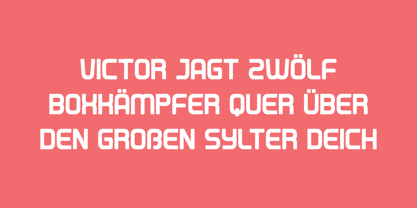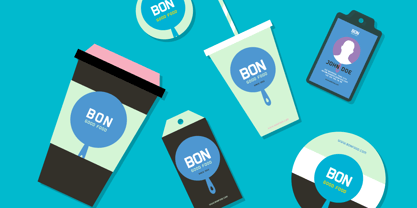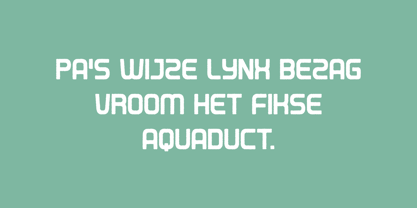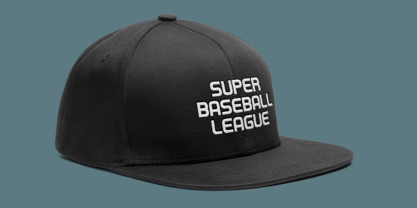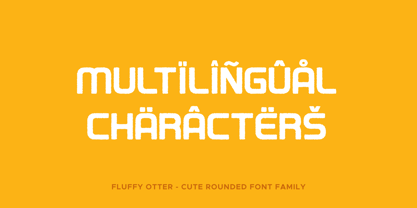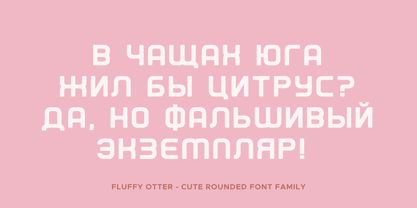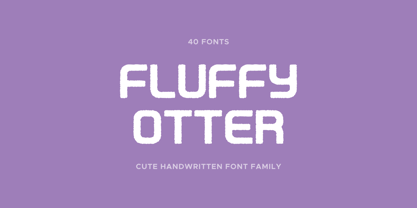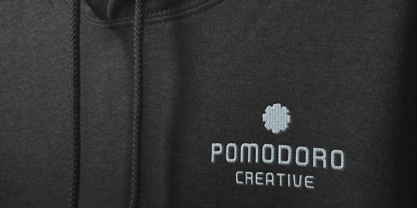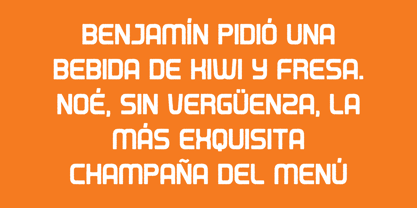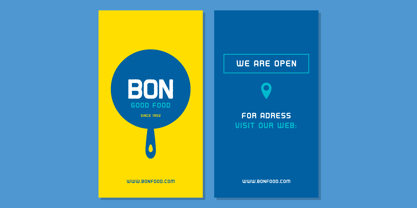
Fluffy Otter
by OtterType
The Fluffy Otter Font Family was designed by Mariia Çakıcı and published by OtterType. Fluffy Otter contains 39 styles and family package options. More about this family
Fluffy Otter is a playful, rounded sans serif display typeface designed to bring warmth, texture, and personality to bold typography. With its soft curves and slightly roughed edges, Fluffy Otter blends friendly charm with handcrafted character, making it perfect for designs that want to feel expressive, approachable, and lively. This versatile type family includes a wide range of textured styles such as Brush, Cut, Eroded, Grit, Ink, Rough, Rust, Scratch, and Worn, each carefully crafted to create a unique visual mood. From organic brush strokes to weathered and eroded textures, every style offers its own personality while maintaining the same soft, rounded structure. Outline and italic variations expand creative flexibility, allowing designers to layer, mix, and experiment with dynamic typographic compositions. Fluffy Otter works beautifully in posters, branding, packaging, social media graphics, logos, merchandise, children’s designs, editorial headlines, and playful display typography. Its bold shapes ensure strong visibility, while the textured styles add depth and handcrafted authenticity. The family contains 40 font styles, including Regular, Italic, Outline, and multiple textured variations with matching italics and outlines. This extensive set allows designers to create everything from clean modern headlines to rough, distressed lettering with personality. Fluffy Otter supports 128 languages, covering a wide range of Latin-based writing systems across Europe, Africa, and beyond. This makes it suitable for international branding and multilingual design projects. Whether you're creating a fun brand identity, energetic poster design, or eye-catching social content, Fluffy Otter delivers a friendly, textured display style full of charm and creative flexibility. Language support: Afrikaans, Albanian, Asu, Azerbaijani, Basque, Belarusian, Bemba, Bena, Bosnian, Bulgarian, Catalan, Cebuano, Chiga, Colognian, Cornish, Corsican, Croatian, Czech, Danish, Dutch, Embu, English, Erzya, Esperanto, Estonian, Faroese, Filipino, Finnish, French, Friulian, Galician, German, Gusii, Hungarian, Icelandic, Ido, Indonesian, Interlingua, Interlingue, Irish, Italian, Javanese, Jju, Kabuverdianu, Kaingang, Kalaallisut, Kalenjin, Kamba, Kikuyu, Kinyarwanda, Kurdish, Latvian, Ligurian, Lithuanian, Lojban, Lombard, Low German, Lower Sorbian, Luo, Luxembourgish, Luyia, Machame, Makhuwa, Makhuwa-Meetto, Makonde, Malagasy, Malay, Maltese, Manx, Māori, Meru, Morisyen, Nheengatu, North Ndebele, Northern Sotho, Norwegian Bokmål, Norwegian Nynorsk, Nyanja, Nyankole, Occitan, Oromo, Polish, Portuguese, Rejang, Romanian, Romansh, Rombo, Rundi, Russian, Rwa, Samburu, Sango, Sangu, Sardinian, Scottish Gaelic, Sena, Shambala, Shona, Sicilian, Slovak, Slovenian, Soga, Somali, South Ndebele, Southern Sotho, Spanish, Sundanese, Swahili, Swati, Swedish, Swiss German, Taita, Taroko, Teso, Tsonga, Tswana, Turkish, Turkmen, Upper Sorbian, Vunjo, Walloon, Walser, Welsh, Western Frisian, Wolastoqey, Xhosa, Zhuang, Zulu Thank you!
Designers: Mariia Çakıcı
Foundry: OtterType
Fluffy Otter